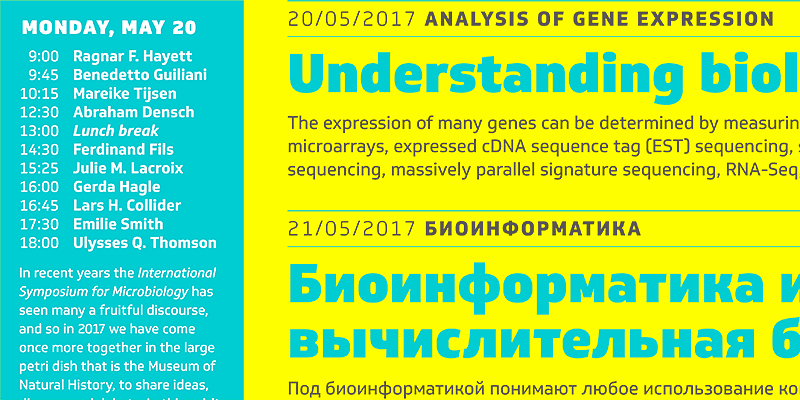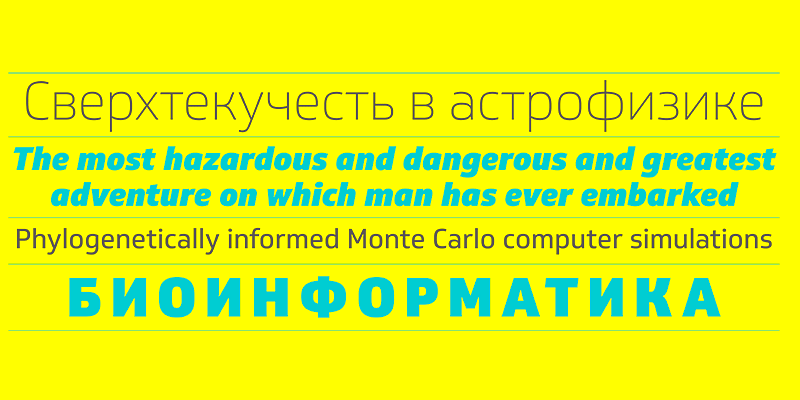
Soleto is a contemporary sans serif typeface with quietly confident features designed for body copy and captions. Pair it with display family Prometo.
Dalton Maag